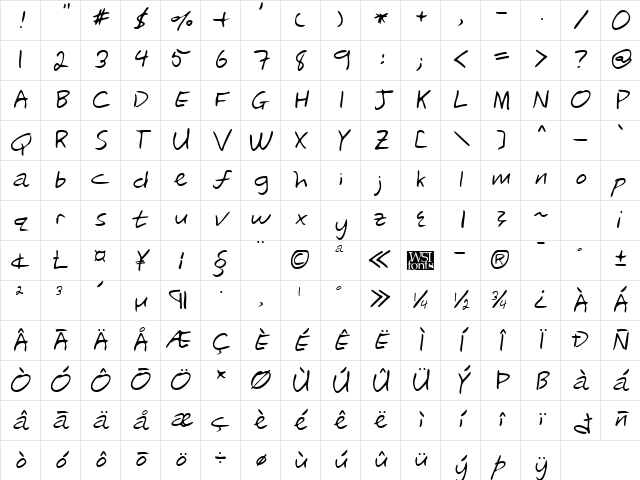
RickysHand Regular
Design Context for RickysHand
RickysHand flows with the natural rhythm of handwritten lettering, making it ideal for designs that call for warmth and personal expression.
Font Pairing: Combine RickysHand with a simple geometric sans for maximum contrast - the tension between flowing curves and clean structure is a classic typographic pairing.
Pro Tip: Use RickysHand for short runs of text - names, titles, or taglines. Extended body copy in script faces tires the eye quickly.